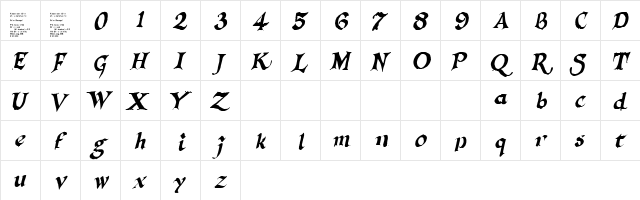
Gab Con Italic Demo densed Italic Font Preview
Design Context for Gab Con Italic Demo Typeface
Gab Con Italic Demo is a composed and adaptable typeface that performs quietly and consistently across a wide range of design contexts. The dynamic lean of this cut emphasises speed and emphasis in any layout.
Pro Tip: Use Gab Con Italic Demo for emphasis, pull quotes, and subheadings where its slanted energy can add rhythm to the layout.